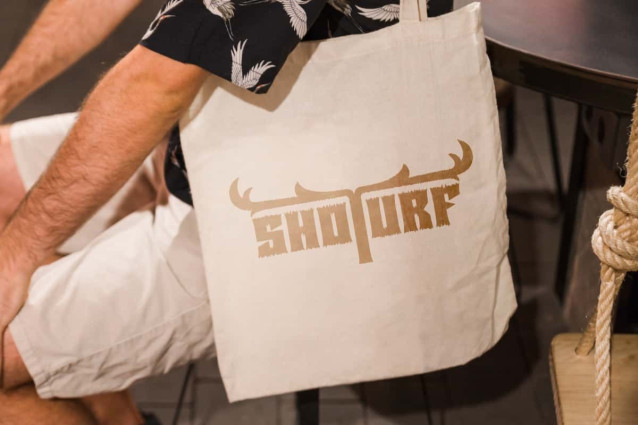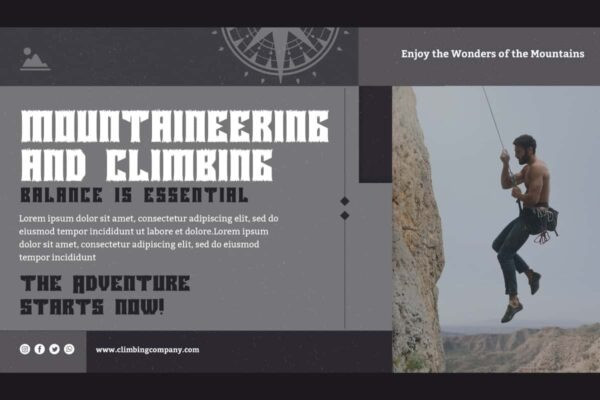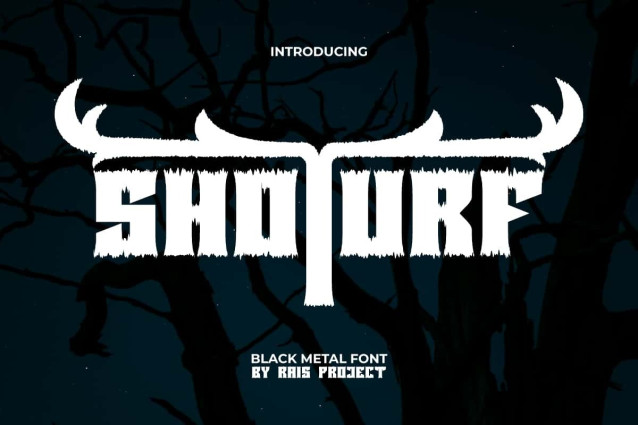
Shoturf Font
Shoturf Font is a Black Metal font with a spooky vibe by RaisProject. This font has thick characters with the top and bottom made rough like grass. Try this font now for various designs, such as poster, label, custom design, stationery, signage, invitation, advertisement, website, quotes, and more!
Shoturf Font comes with a full set of upper and lowercase letters, numerals, a large range of punctuation, and Alternate character to make it awesome. The font carefully crafted to create a horror look and still easy to read. This font would be perfect for industry like movie, game, fashion, event or festival, cafe, graphic designer, printing, publishing, etc.